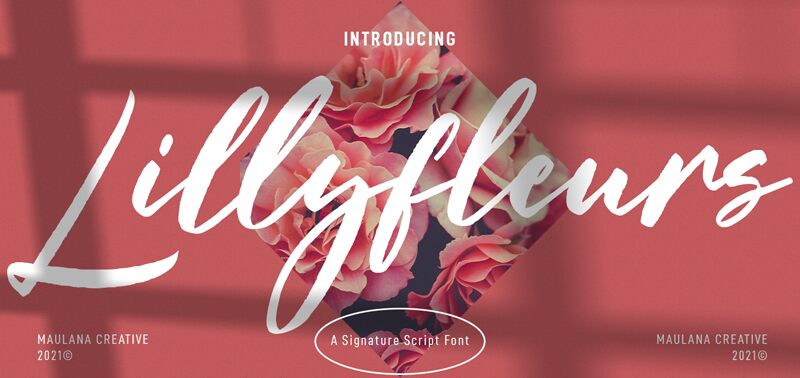
Lillyfleurs
Introducing Lillyfleurs, an amazing handwritten font designed by Maulana Creative with a light weight. Perfect for adding a personal touch to logos, quotes, invitations, cards and other creative projects.